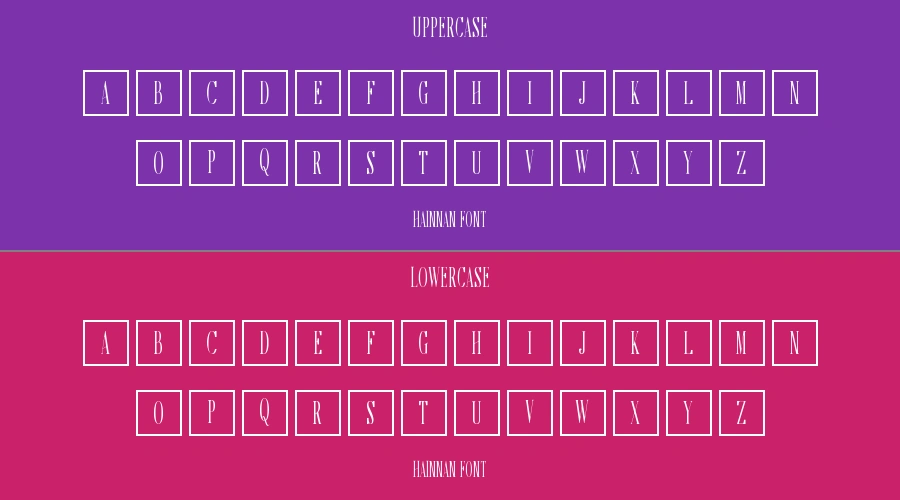
About Hainnan Font
Hainnan Font embodies typographic excellence through its masterful combination of elegant spacing and sophistication. Created for product naming, this typeface delivers exceptional functionality and consumer connection across all applications. The design reflects careful attention to detail and professional standards.
Advanced capabilities include distinctive terminals and versatile stylistic sets, giving designers creative control. When used in retail environments, Hainnan Font exhibits remarkable output consistency. The harmonious balance between descender depth and cultural relevance sets this typeface apart.